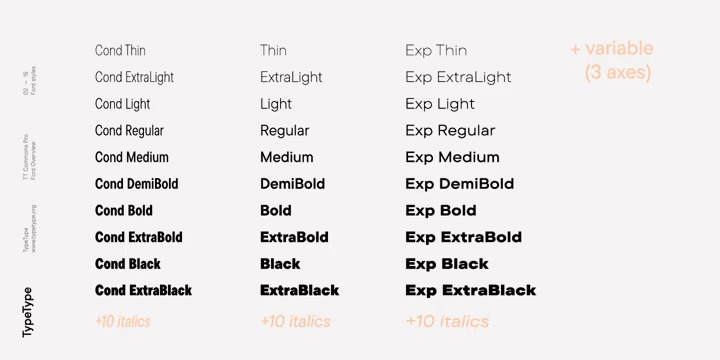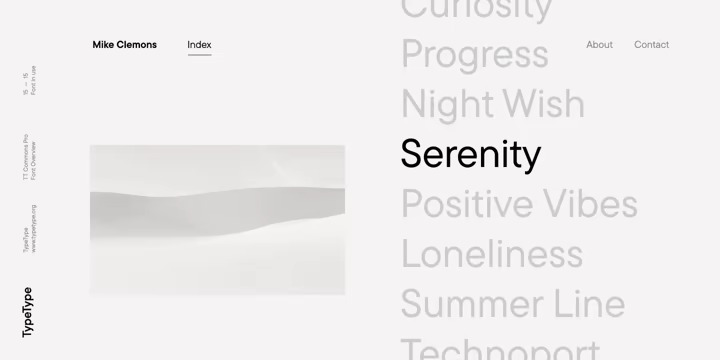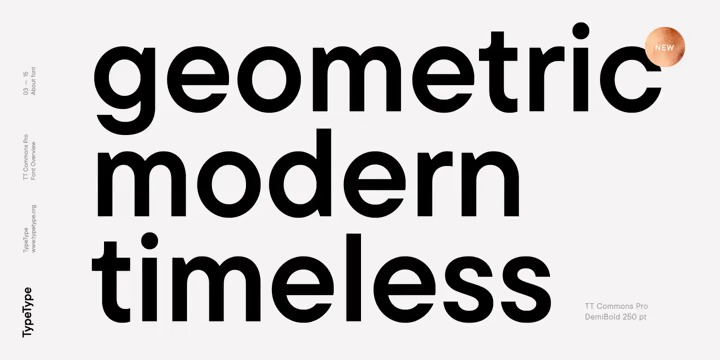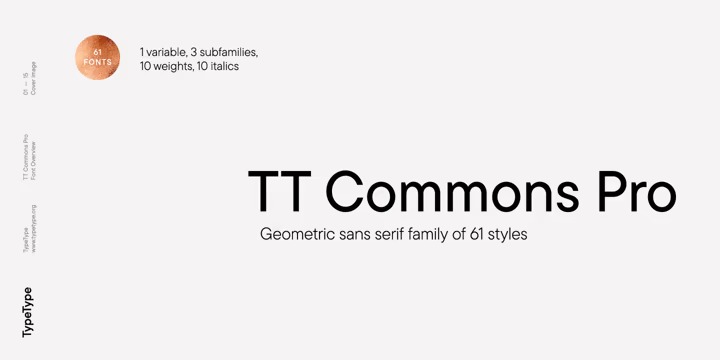
TT Commons Pro Font Family
TT Commons Pro Sans Serif Font
This font is a free-spirited neo-grotesque that embodies both the innate desire for revolt and a tendency towards uniformity. It’s designed and shared by sartstudio. a completely redesigned version of the well-established classic font family that now offers even more functionality and is even better adapted for today’s use.
First, the font height has been increased by 11%, and now the capital letter height is 700 points instead of 630 in the classic version. This is done so that the font fits better in the place of system or other modern fonts.
Secondly, for the PRO version, we revised ALL characters in the font, corrected all the outlines, edited the shape of some characters, improved diacritics and small caps. In addition, we completely redid the weight distribution in the font family, expanded language support, and also redrew all the family’s italics from scratch and did completely new hinting.
And most importantly, we decided to significantly expand the functionality of the font and added two new widths: narrow and wide. Thus, TT Commons Pro has become a truly ultimate workhorse, with which you can solve any problems related to layout, printing, design, branding, use in the web and applications.